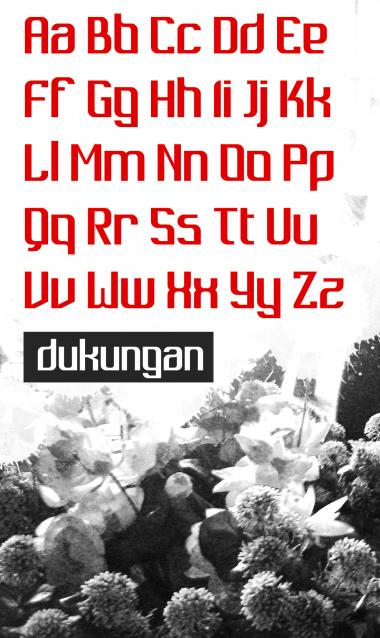
Dukungan comes from Bahasa Indonesia. In English it means 'support'. I didn't know. The first word i imagined when creating this font was 'dukungan'. whatever... Enjoy and Download :D
What a delightful design ... I support it with a well deserved 10/10
This is a WONDERFUL font. Keep it up.
I like this font, simple and elegant, but sweet. Congratulations for the TP!